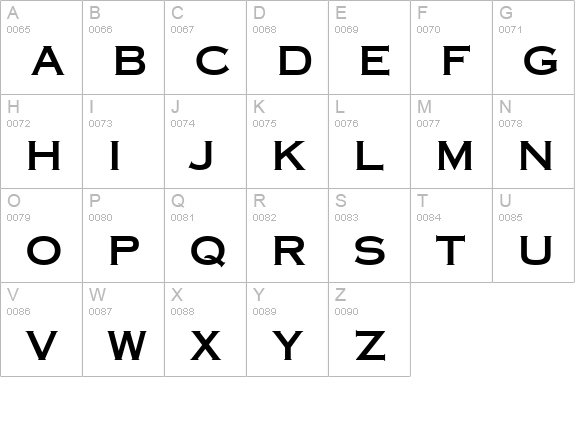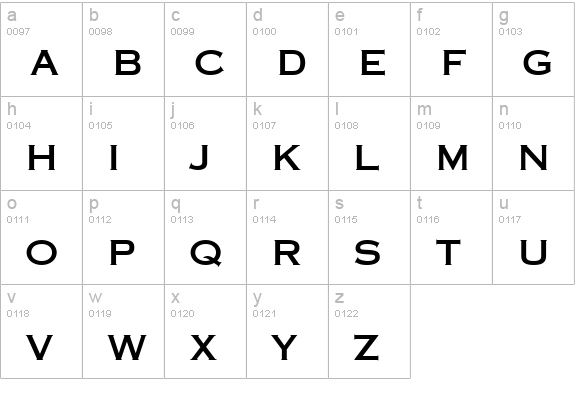
Copperplate SSi Bold is a strong, high-contrast variant in the Copperplate typeface family \xE2\x80\x94 well suited to headlines, attention-grabbing titles, and strong calls-to-action.
Copperplate SSi Bold font is a timeless and elegant typeface that exudes sophistication and professionalism. Its bold and distinctive strokes make it perfect for headlines, titles, and branding projects that require a touch of class. The font's classic design ensures readability and impact, making it a versatile choice for a wide range of design applications. And the best part is, Copperplate SSi Bold font is available for free download at FontsMarket.com. This means you can easily enhance your projects with this premium font without breaking the bank. Don't miss out on the opportunity to add Copperplate SSi Bold font to your font collection and elevate your designs with its timeless appeal.